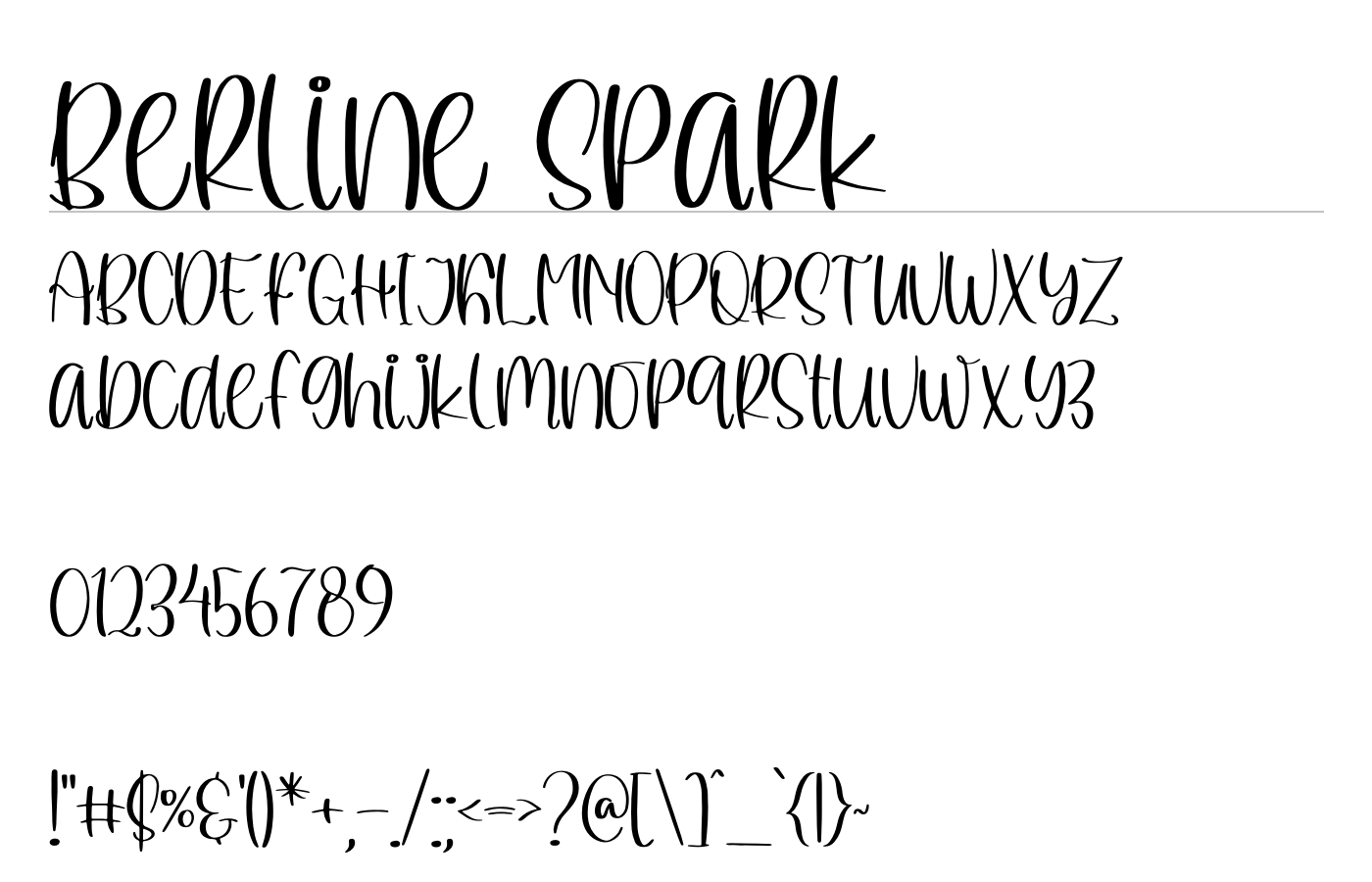
Berline Spark is a playful, handwritten sans serif font with a light weight and tall, narrow letterforms that give it an airy and whimsical feel. Its smooth, flowing strokes and distinctive quirky shapes make it perfect for creative projects, casual branding, and expressive headlines where a friendly and informal tone is desired. This font shines in designs that seek a personal touch, such as invitations, social media graphics, and artistic packaging.
Berline Spark Font
About Berline Spark Font